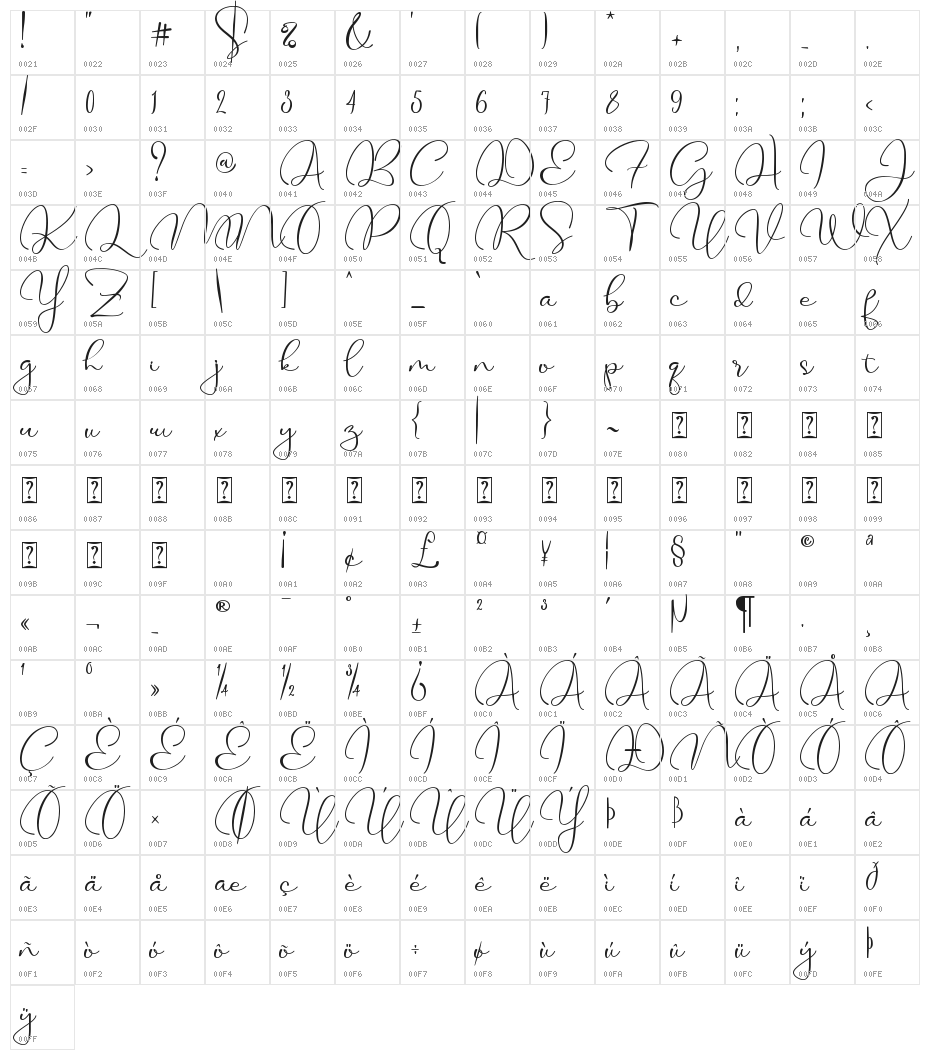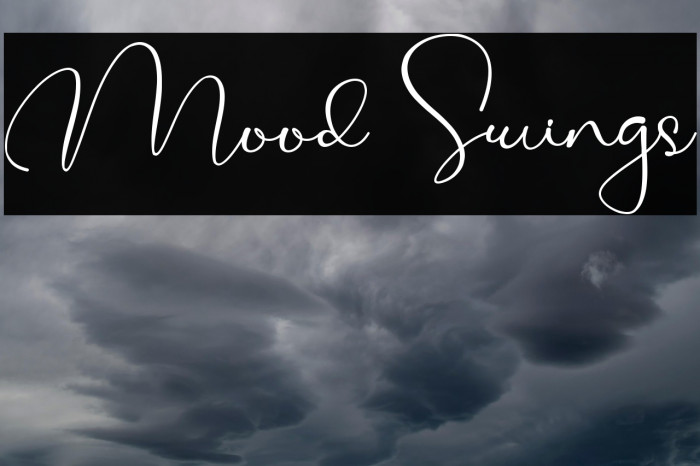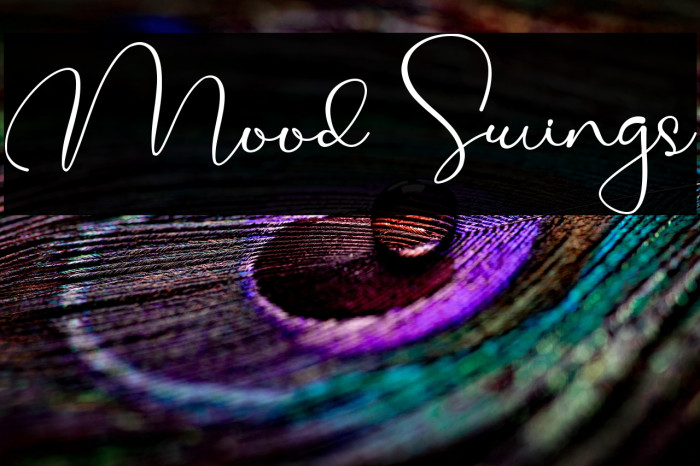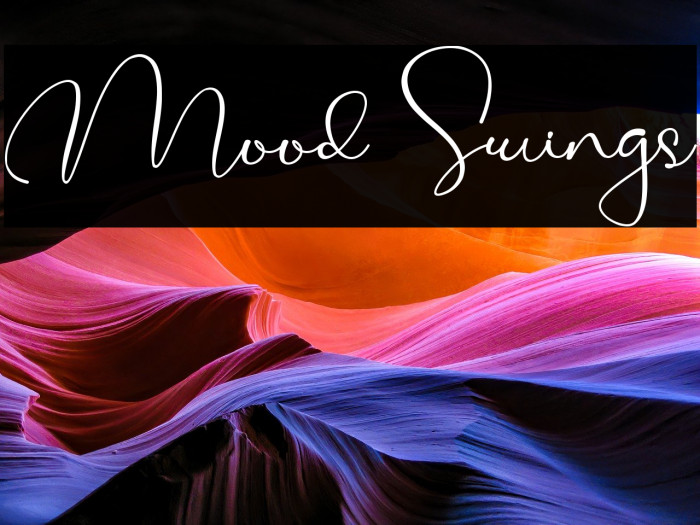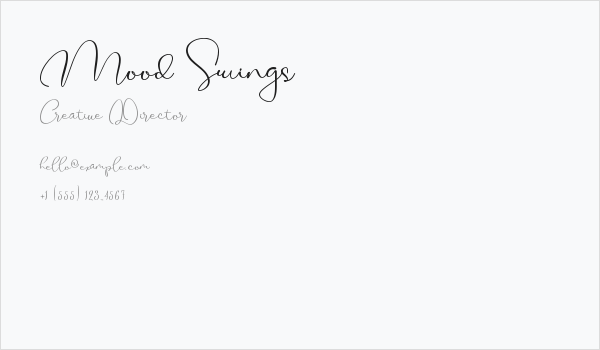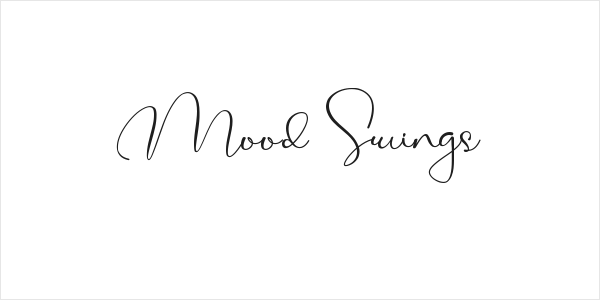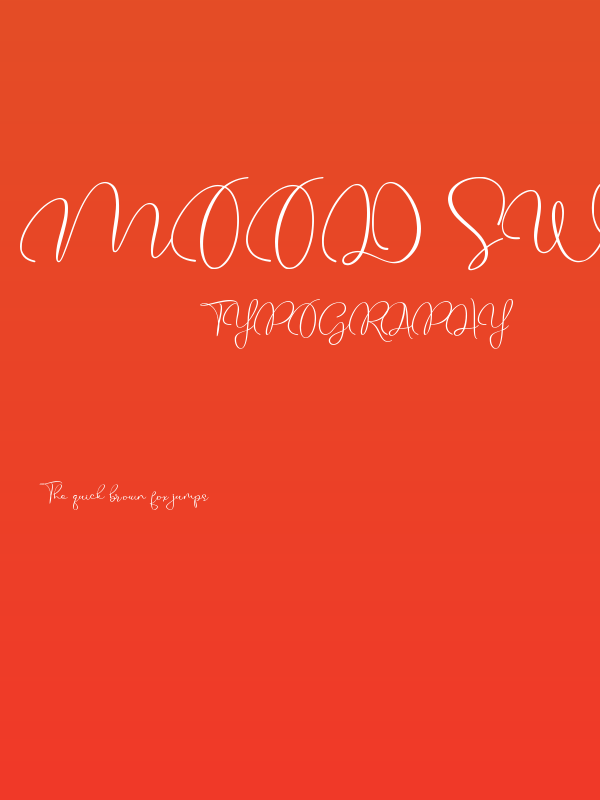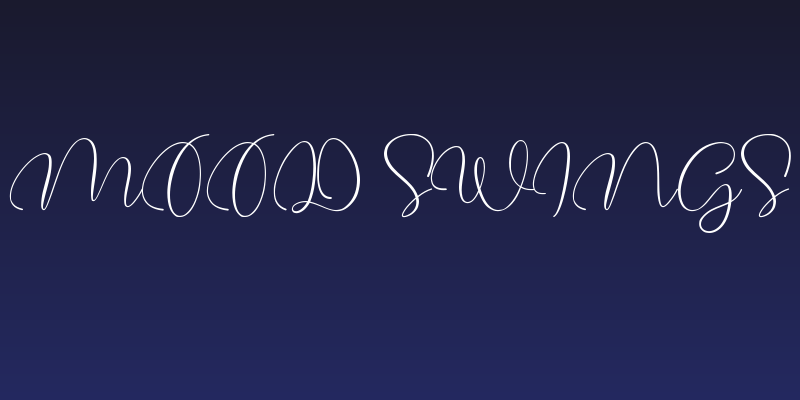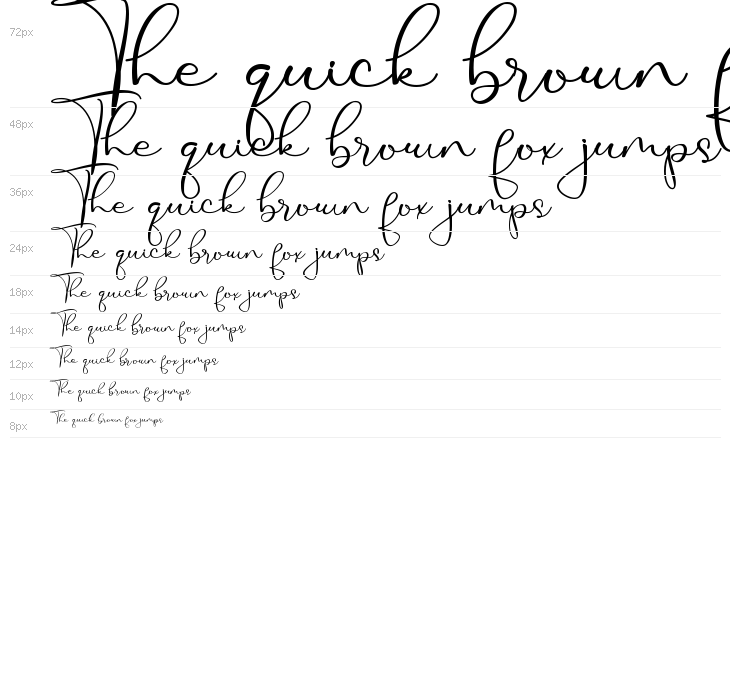
Mood Swings Font
Mood Swings Description
This font features a lively and expressive script style, characterized by its fluid, cursive strokes and elegant loops. The uppercase letters are gracefully connected, creating a sense of continuity and flow. The lowercase letters maintain a consistent rhythm, with some characters extending slightly below the baseline, adding to the font's dynamic appearance. The numerals are clear and legible, complementing the overall style. Special characters are thoughtfully designed, maintaining the font's cohesive look. This font exudes a sense of creativity and sophistication, making it suitable for a variety of artistic applications.